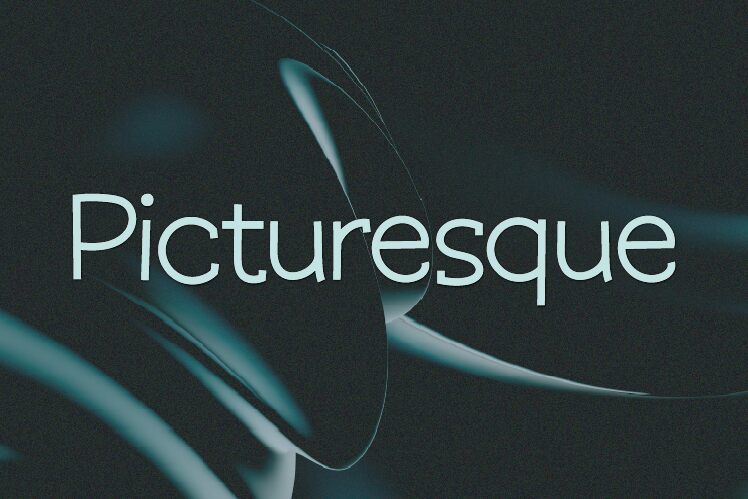
Picturesque
Picturesque font by HannaBie Creative Studio is a free comic display typeface with a clean, hand-drawn charm. Its tall, rounded letters feel sketched with a steady marker—smooth, even strokes with just enough wobble to feel human. The spacing is airy and relaxed, so words string together like a casual note in a sketchbook rather than stiff, mechanical text.
Using Picturesque, headlines instantly feel friendly and approachable, making this free font a natural fit for kids’ book covers, playful logos, comic panels, social posts, packaging, and YouTube thumbnails. It shines at larger sizes where its subtle quirks can breathe; pair it with a simple sans serif for body copy to keep the overall layout balanced and readable.